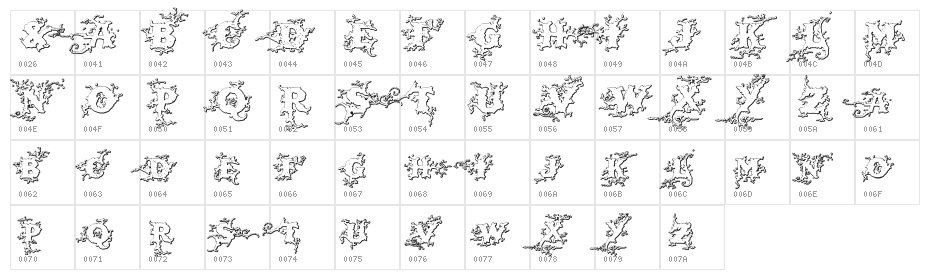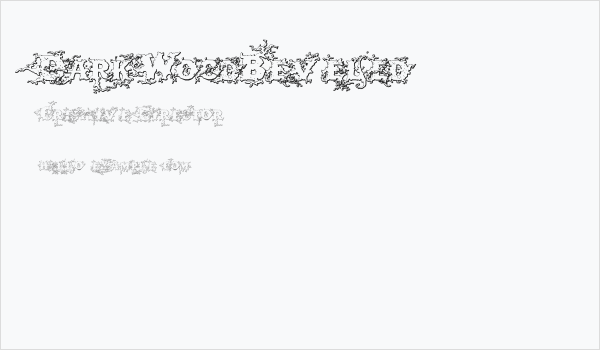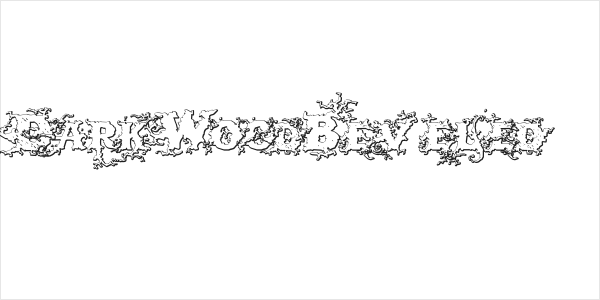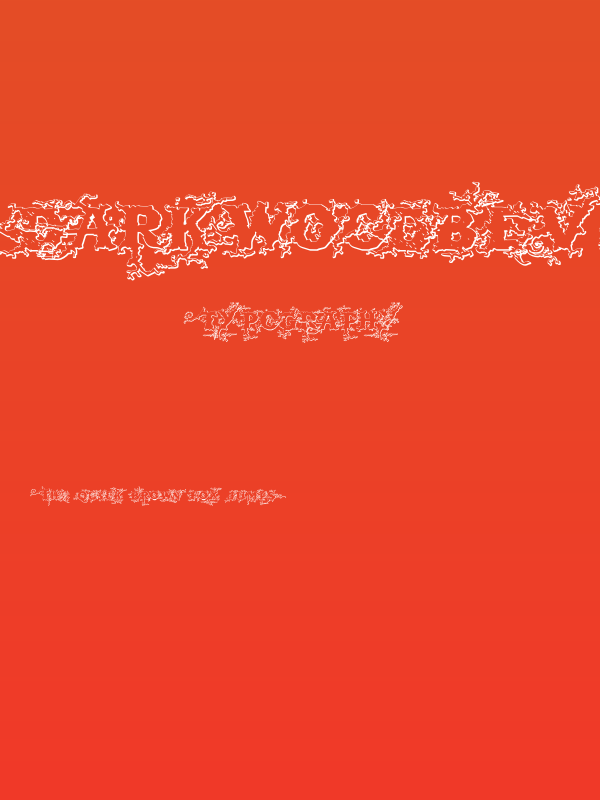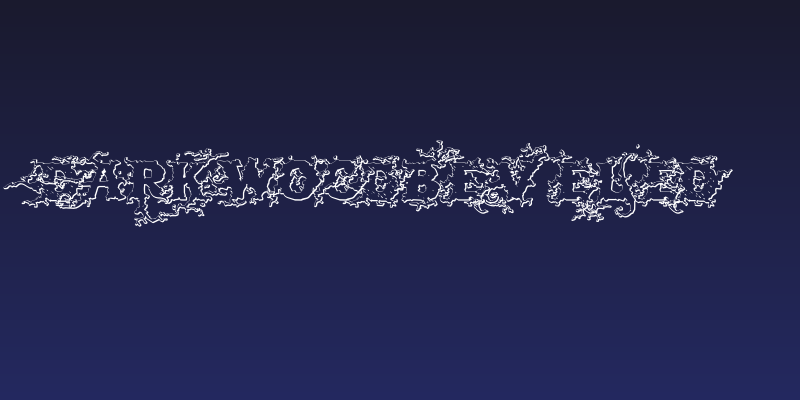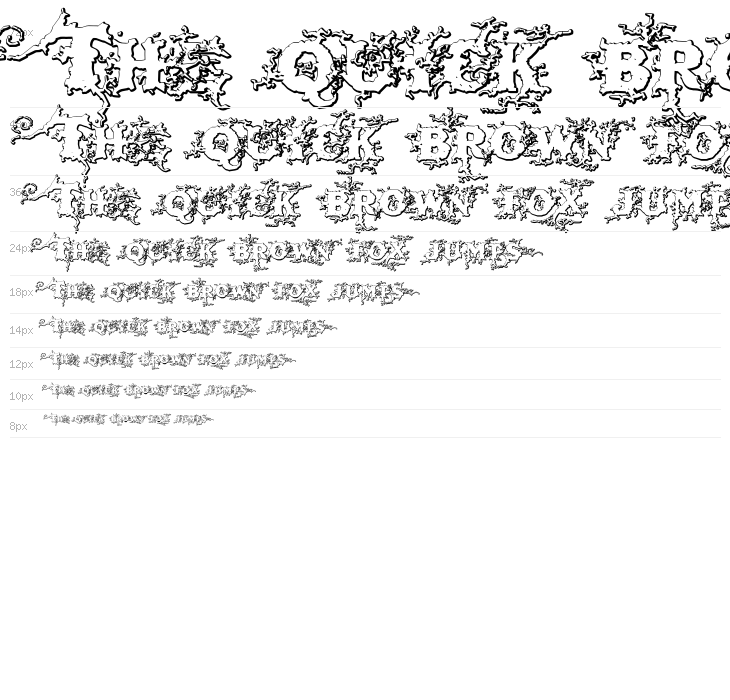
DarkWoodBeveled Font
DarkWoodBeveled Description
This font features an intricate, decorative design that resembles twisted vines or branches, giving it a natural and organic appearance. The letters are heavily stylized with elaborate embellishments that create a sense of depth and texture. Each character is unique, with swirling patterns that extend beyond the basic letterforms, making it highly decorative and visually striking. The font's complexity and detail make it suitable for projects that require a touch of fantasy or nature-inspired themes. It is not suitable for body text due to its ornate nature, but it can make a strong impact in headlines or artistic designs.
| Use Case | Headlines, Artistic designs |
| Proposed Projects | Ideal for fantasy-themed posters, book covers, or artistic projects that require a natural or mystical aesthetic. |